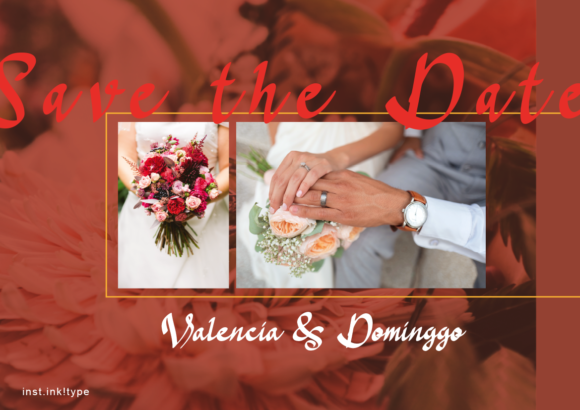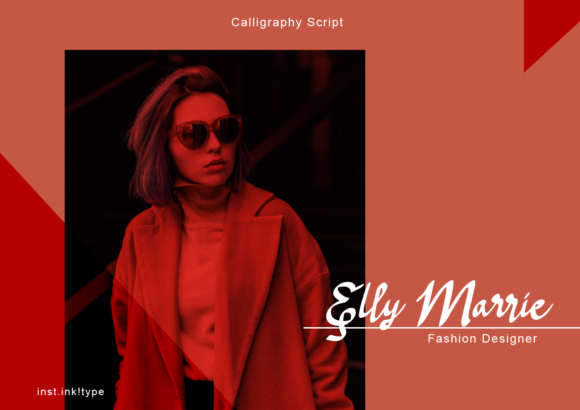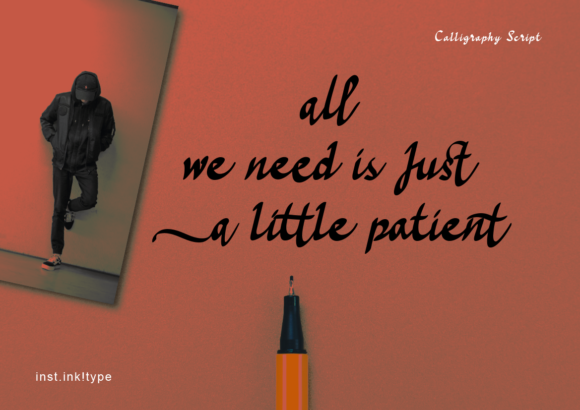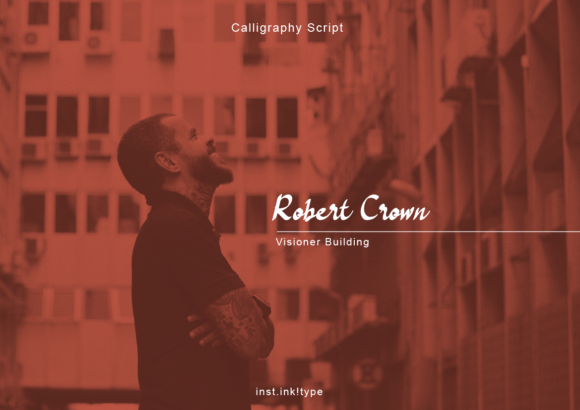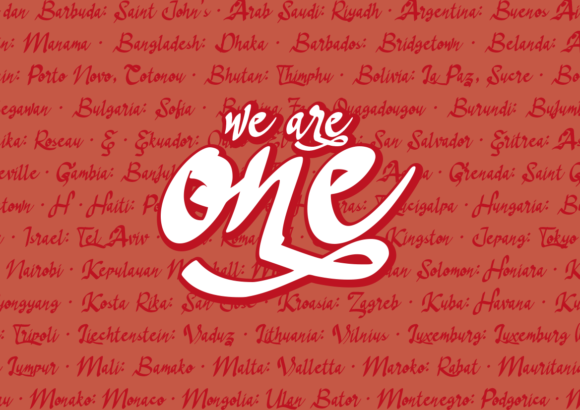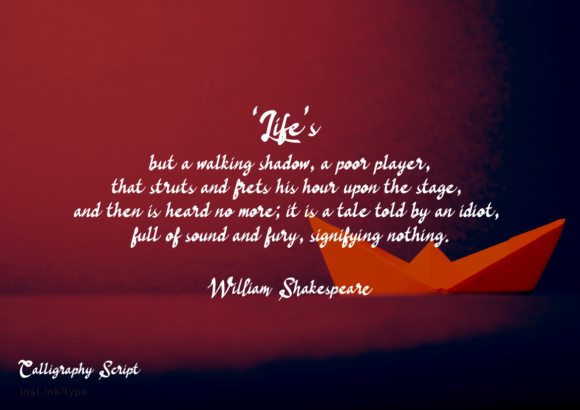
Introduction to Lockanantta Font
As a designer, have you ever stumbled upon a font that just speaks to you? The kind that makes you want to create something beautiful and unique? That’s exactly what happened when I discovered the Lockanantta Font. Its elegant and casual script handwriting style immediately caught my attention, and I knew I had to share it with fellow creatives.
The Lockanantta Font is a game-changer for any design project. With its authentic feel, it’s perfect for creating gorgeous wedding invitations, beautiful stationery art, eye-catching social media posts, and cute greeting cards. Whether you’re working on a free download or a high-quality design resource, this font is sure to elevate your creative project to the next level.
As a valuable design resource, the Lockanantta Font offers a transparent background, allowing for seamless integration into any project. Its high-quality design makes it a must-have for any designer looking to add a touch of elegance to their work.
Key Features of Lockanantta Font
- High-quality font design with a unique, creative style, making it an ideal design resource for various projects.
- Designed to be highly legible, with clear and crisp characters, making it suitable for use in a variety of contexts, including digital and print media.
- Perfect for use in creative projects, such as graphic design, typography, and digital art, due to its unique and expressive style.
Honest Review: Lockanantta Font
As a designer, I’m always on the lookout for high-quality fonts to enhance my creative projects. The Lockanantta Font caught my eye with its unique style and versatility. I decided to give it a try and see if it lives up to its promise.
- ✨ The Lockanantta Font has a high-quality design that’s perfect for any creative project.
- ⚠️ The font only comes in a limited number of weights, which might not be suitable for projects requiring a wide range of font styles.
- ⚠️ Some users may find the font’s unique style a bit too bold or overpowering.
Overall, the Lockanantta Font is a solid addition to any designer’s toolkit. While it may not be perfect, its unique style and high-quality design make it a great resource for creative projects. Just be mindful of its limitations and adjust your design accordingly.
Lockanantta Font is ideal for creative projects that require a unique and high-quality design element. Its transparent background makes it easy to overlay on images or use as a standalone design element.
Tips for Getting the Most Out of Lockanantta Font
To get the most out of Lockanantta Font, experiment with different font sizes, colors, and styles to create a unique and eye-catching design element. You can also use the font in combination with other design elements to create a cohesive and visually appealing design.
Lockanantta Font is ideal for use in a variety of creative projects, including:
- Posters
Yes, the Lockanantta Font is designed to produce high-quality results, even at large font sizes and high resolutions. Its crisp, clear lines and transparent background ensure that your designs will look great on both digital and print materials.